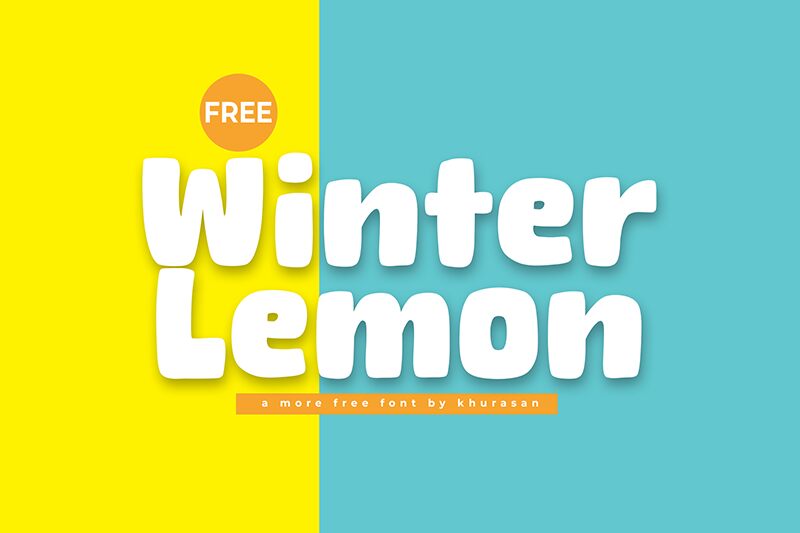
Winter Lemon
Winter Lemon font by Khurasan is a bold cartoon display typeface exuding modernity and cohesiveness. With rounded, approachable, and friendly characters, this cheerful and casual font will get the readers reading beyond the first sentence. And the more they read, the more they’ll feel its kinda youthful vibe.
Free Winter Lemon is an essential pick for food product branding, packaging designs, comics covers, websites for kids; games titles designs; animated or cartoony video titles; T-shirt design; greeting cards illustrations; custom stamps typography; lorry back board design; book covers for young adults graphic novels.